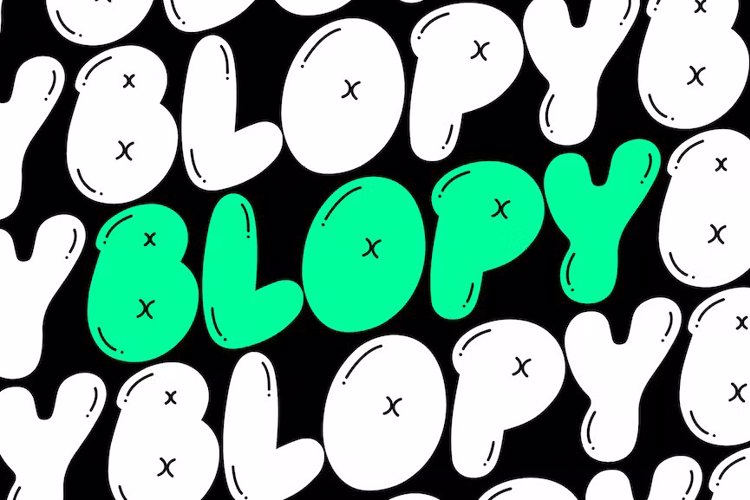
Blopy Font
About Blopy Font
Blopy - Bubble Font is another retro modern font with playful look and feel. This font would be perfect for display and large graphic. Use this font for merchandise, posters, tshirt, website, and many more projects!.